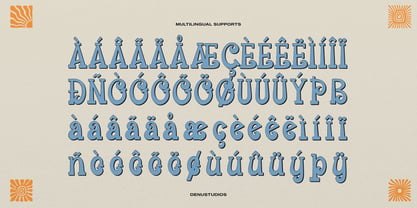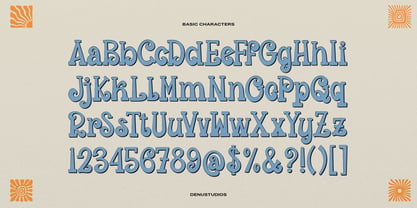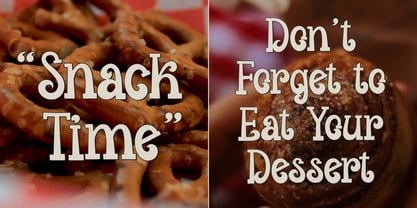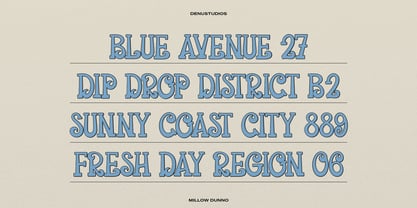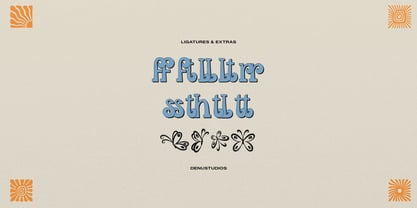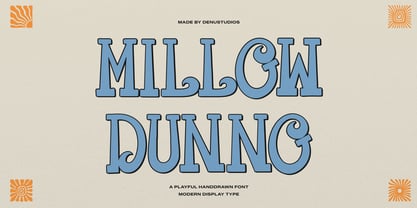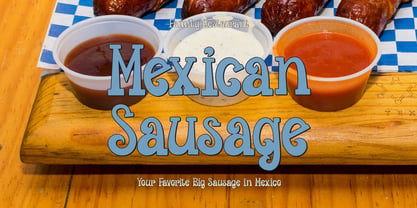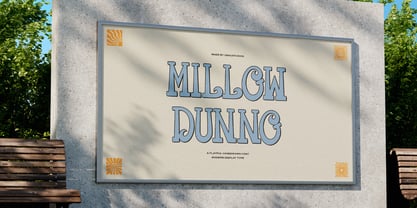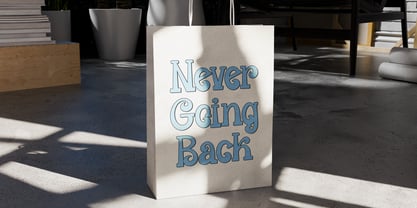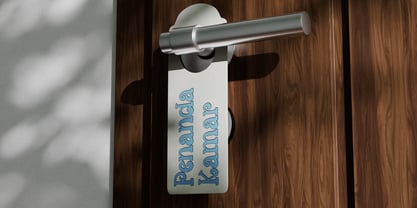
Millow Dunno
by Denustudio
The Millow Dunno Font Family was designed by Dede Nugraha and published by Denustudio. Millow Dunno contains 1 styles. More about this family
Millow Dunno | Playful Hand Drawn, from Denustudios, suitable for any projects such as: logos, branding projects, homeware designs, product packaging, mugs, quotes, posters, shopping bags, t-shirts, book covers, name card, invitation cards, greeting cards, label, photography, watermark, special events, and all your other lovely projects that need Hand Drawn a taste.
Designers: Dede Nugraha
Foundry: Denustudio